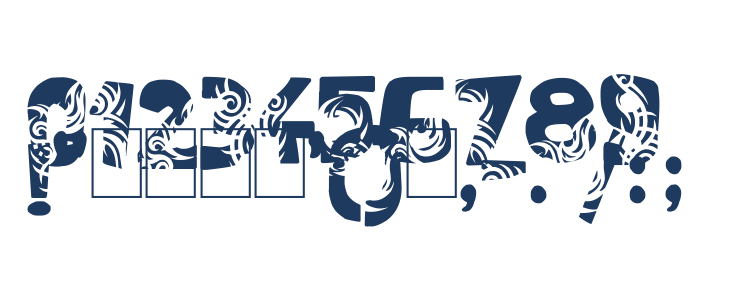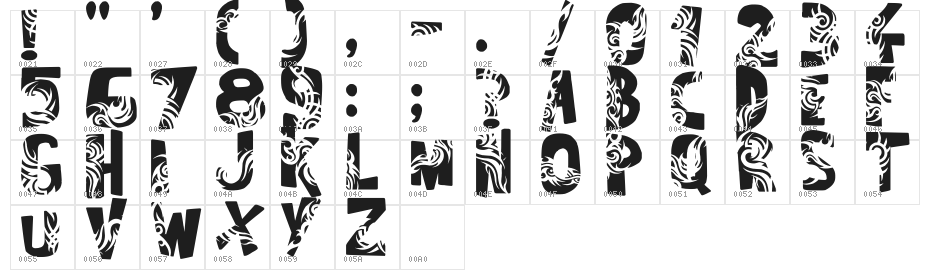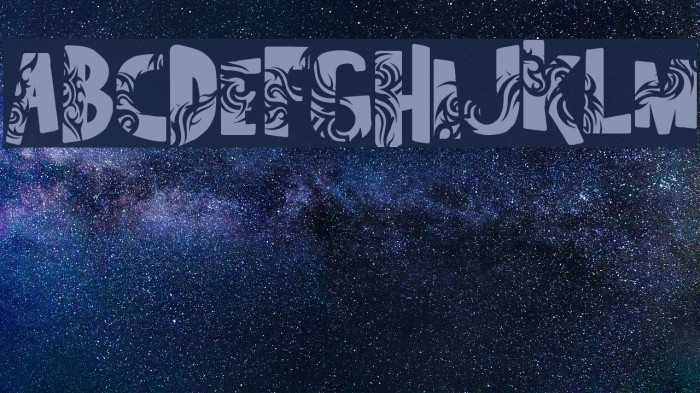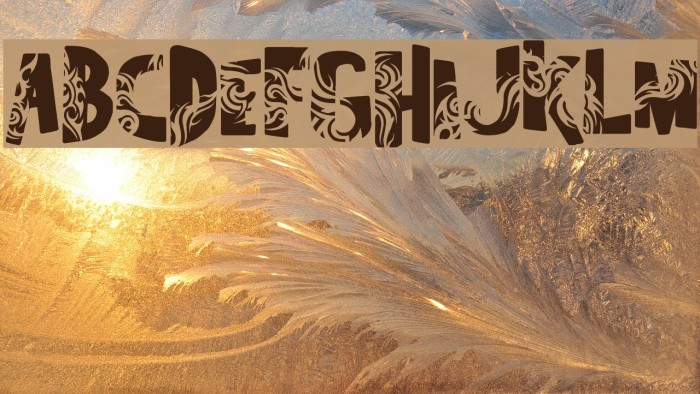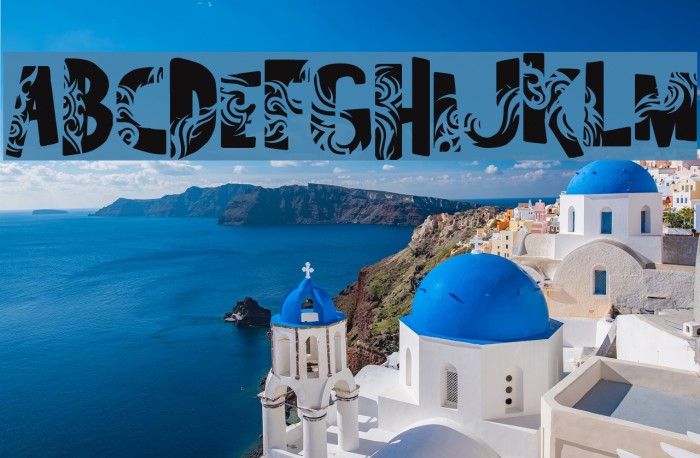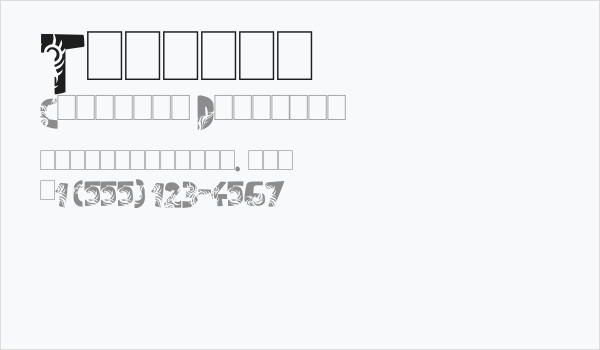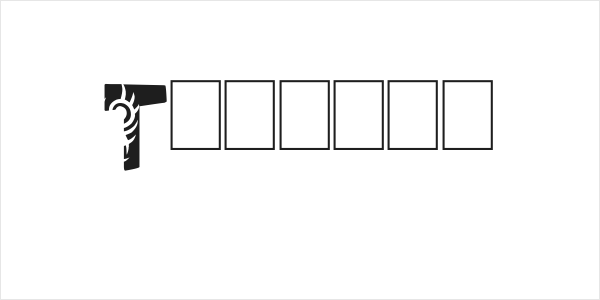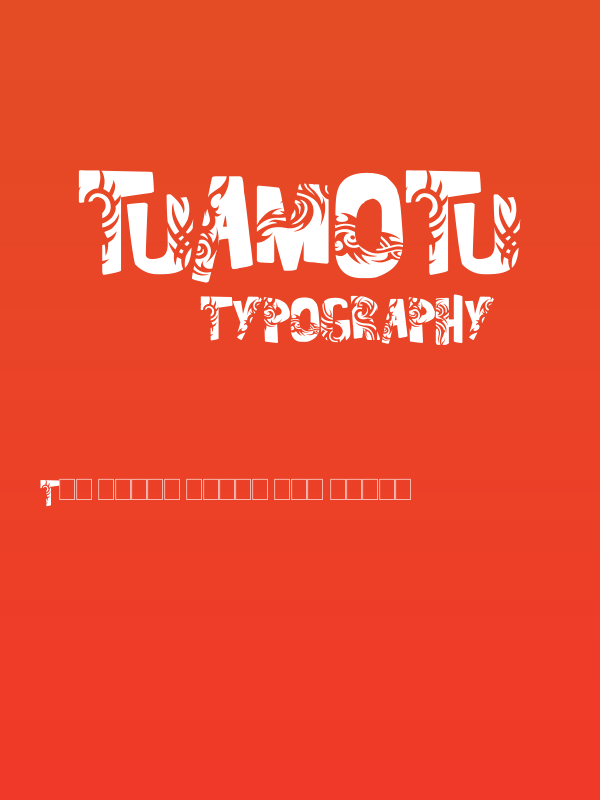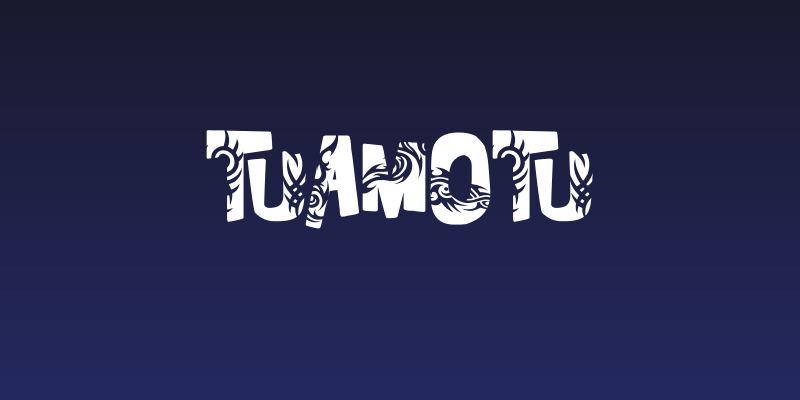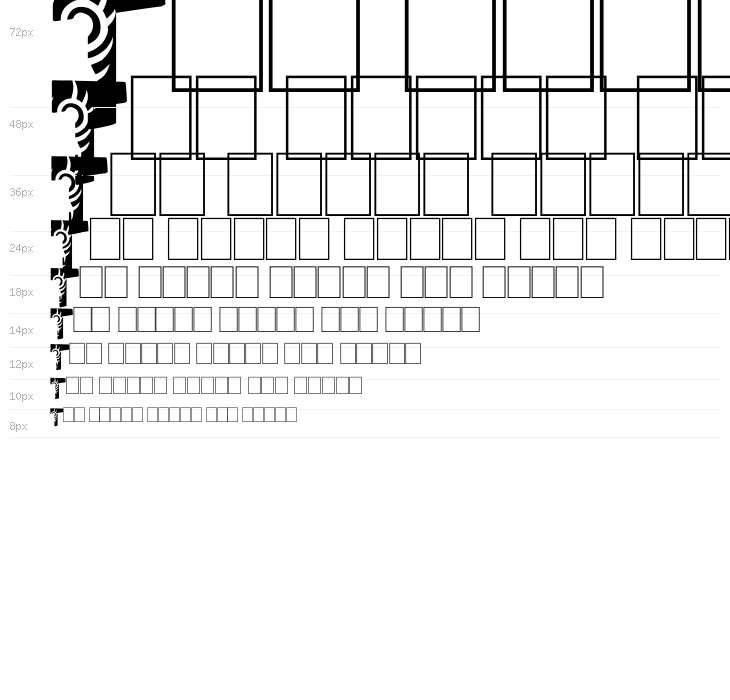
Tuamotu Font
Tuamotu Description
This font features a bold and decorative style with intricate tribal patterns embedded within each character. The design is inspired by traditional Polynesian motifs, giving it a unique and artistic flair. The uppercase and lowercase letters, as well as numbers, are all adorned with these detailed patterns, making it stand out as a display font. The characters are bold and have a strong presence, suitable for capturing attention in various design projects.
| Proposed Projects | Ideal for cultural event posters, artistic projects, branding for travel agencies, or any design needing a bold, tribal aesthetic. |